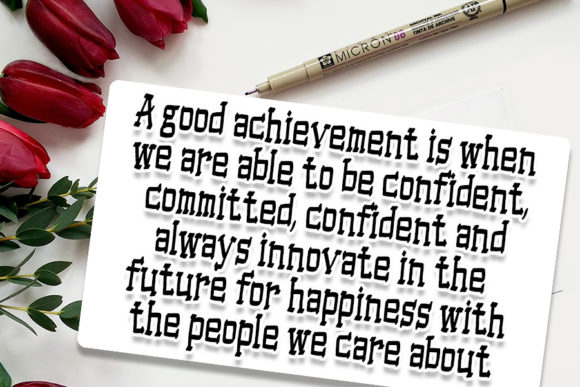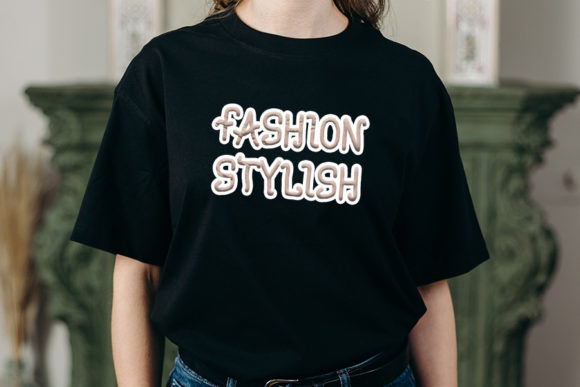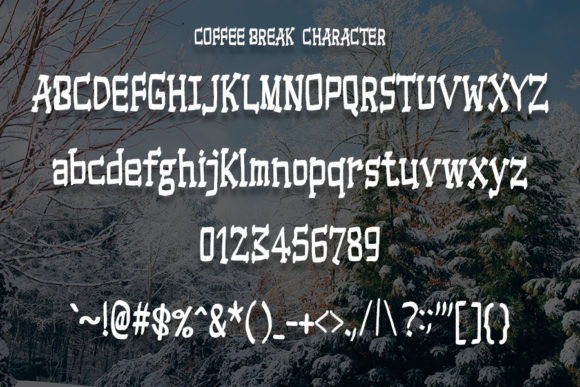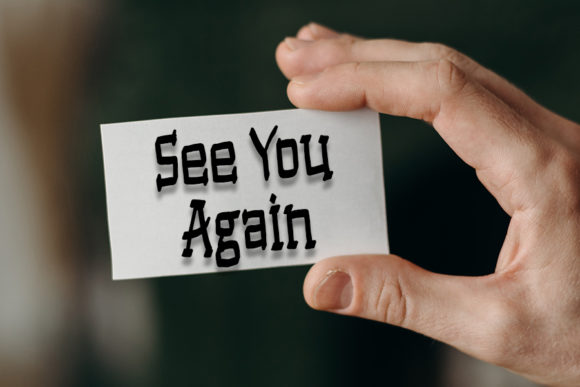
Introduction to Collega Font
Collega is a natural and neat display font, featuring the perfect amount of trendiness.
Whether youโ€™re using it for crafting, digital design, presentations or greeting cards making, itโ€™s perfect .
Key Features of Collega Font
Why Choose Collega Font?
Collega Font offers exceptional quality and versatility, making it a valuable addition to your design toolkit. Whether you’re creating for personal projects or commercial use, Collega Font delivers professional results.